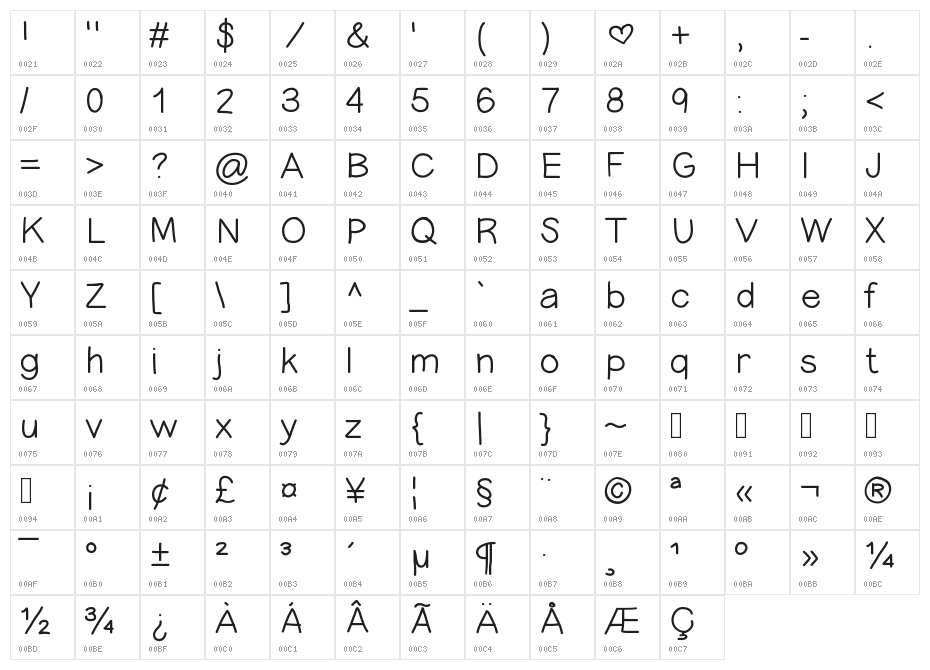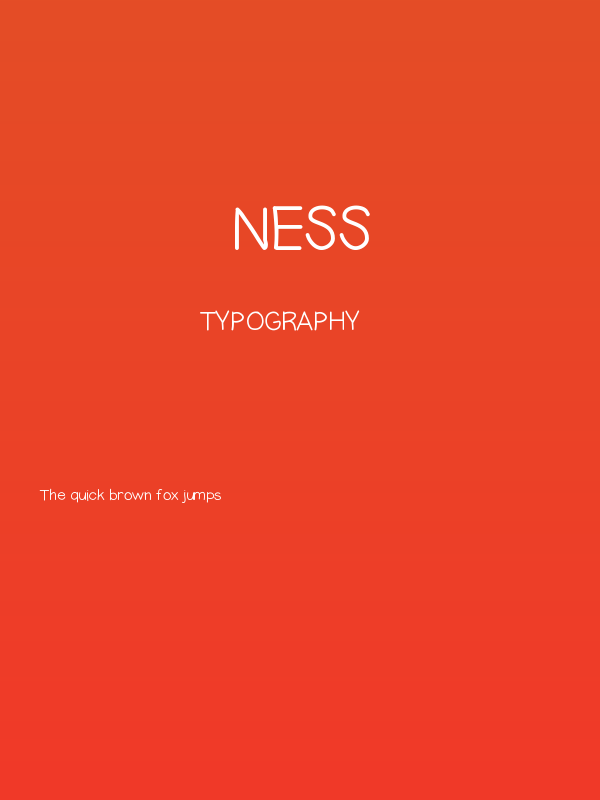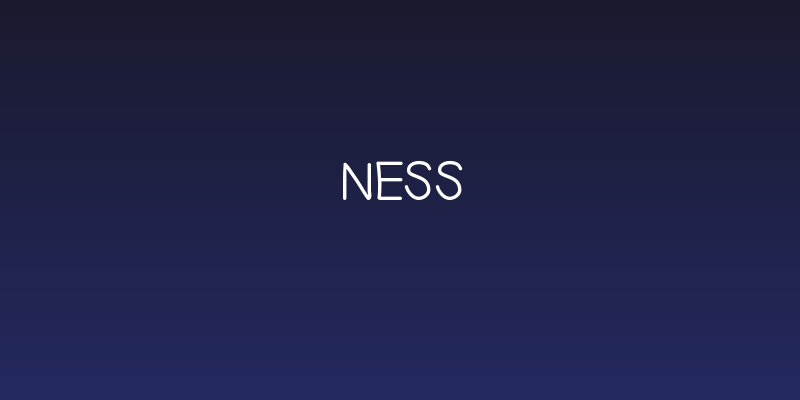
Ness Font
Ness Description
This font features a playful and rounded style, characterized by its smooth curves and friendly appearance. The letters are evenly spaced with a consistent stroke width, giving it a clean and approachable look. The uppercase and lowercase letters maintain a uniform height, contributing to its legibility. Numbers and special characters are designed with the same rounded edges, ensuring a cohesive aesthetic throughout. This font's simplicity and warmth make it suitable for a variety of applications, from children's books to casual branding.
Overall StylePlayful
Use CaseHeadlines, Logos, Casual Text
Proposed ProjectsIdeal for children's books, casual branding, greeting cards, and playful advertisements.